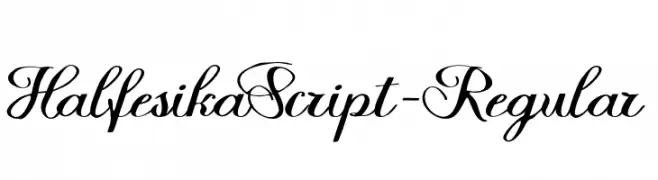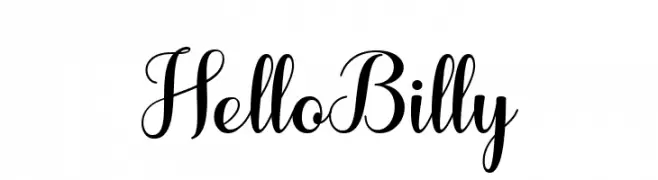
A cursive, handwritten-style font with elegant loops and swashes.
A modern, elegant script font with graceful loops and swashes.
An elegant and flowing script font with intricate loops and swashes.
A graceful script font with flowing, cursive strokes and elegant swashes.
A modern, elegant script font with flowing cursive letters and stylish swashes.
A bold, dynamic script font with fluid, cursive strokes and elegant swashes.
A graceful script font with flowing, interconnected letterforms and elegant swashes.
An elegant script font with decorative swashes and flowing cursive style.
A playful and elegant script font with flowing, cursive letters and modern swashes.
An elegant script font with flowing, cursive letters and decorative swashes.